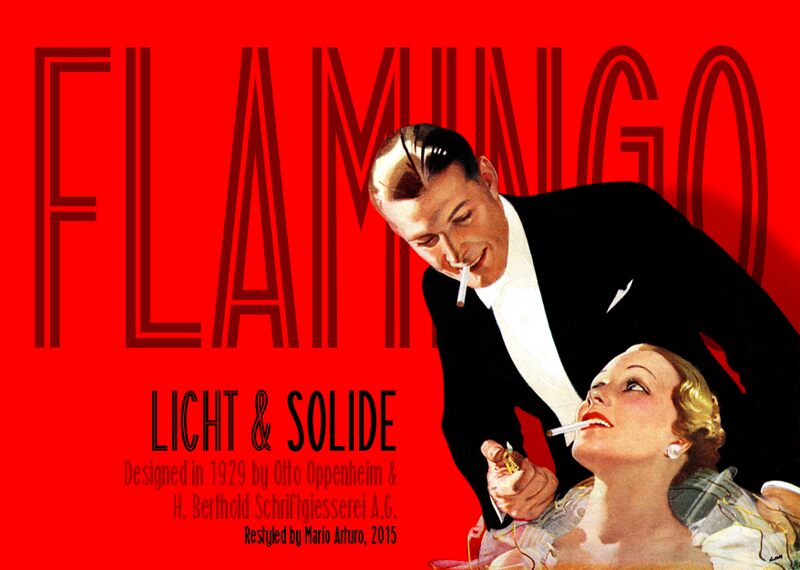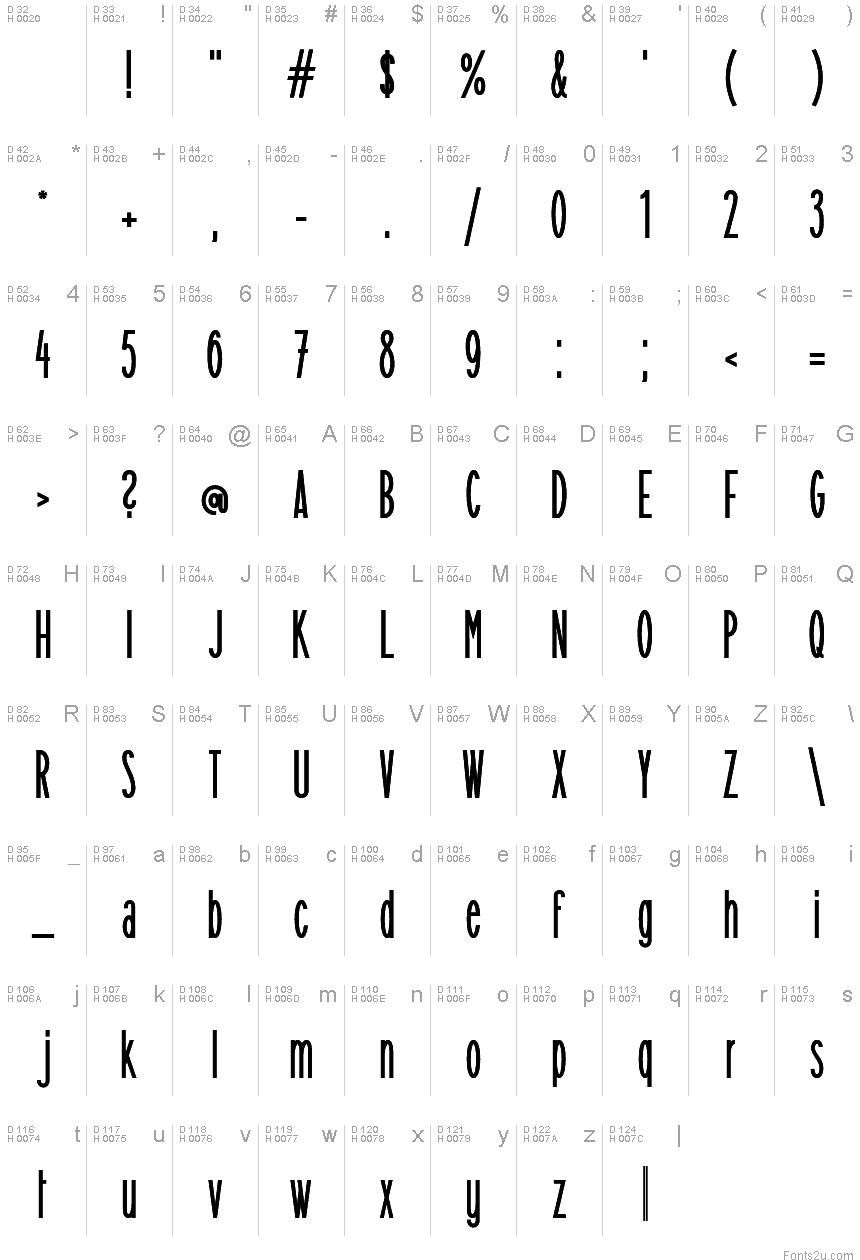
FlamingoSolide
Designed in 1929 by Otto Oppenheim & H. Berthold Schriftgiesserei A.G. Restyled and updated by Mario Arturo, 2015. All of the original letters from the designer are there as few alternate. The print to trace this font from was sent to me by letterpress printer and teacher Jens Jrgen Hansen from Denmark, who I thank. I also added a few punctuation characters and currency symbols.